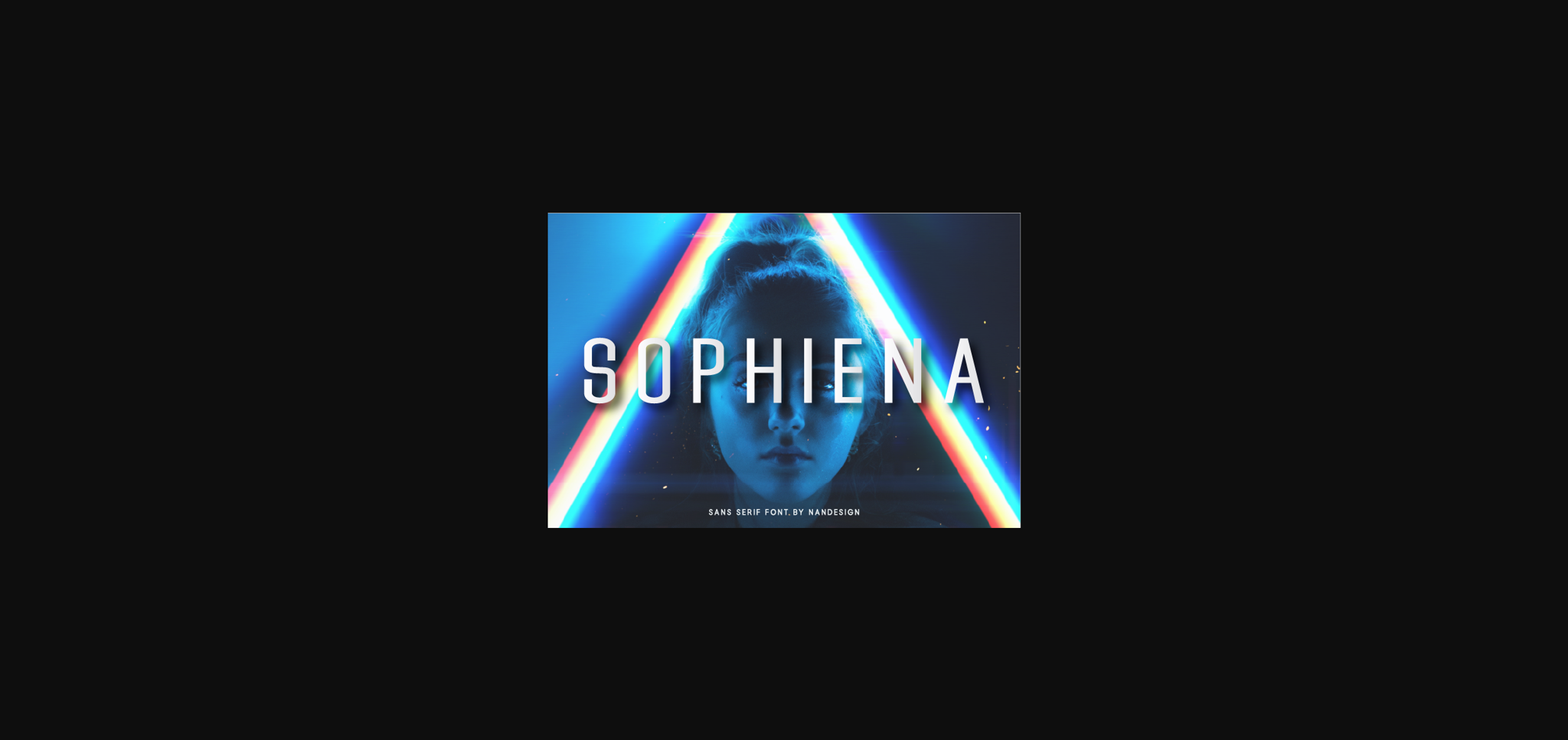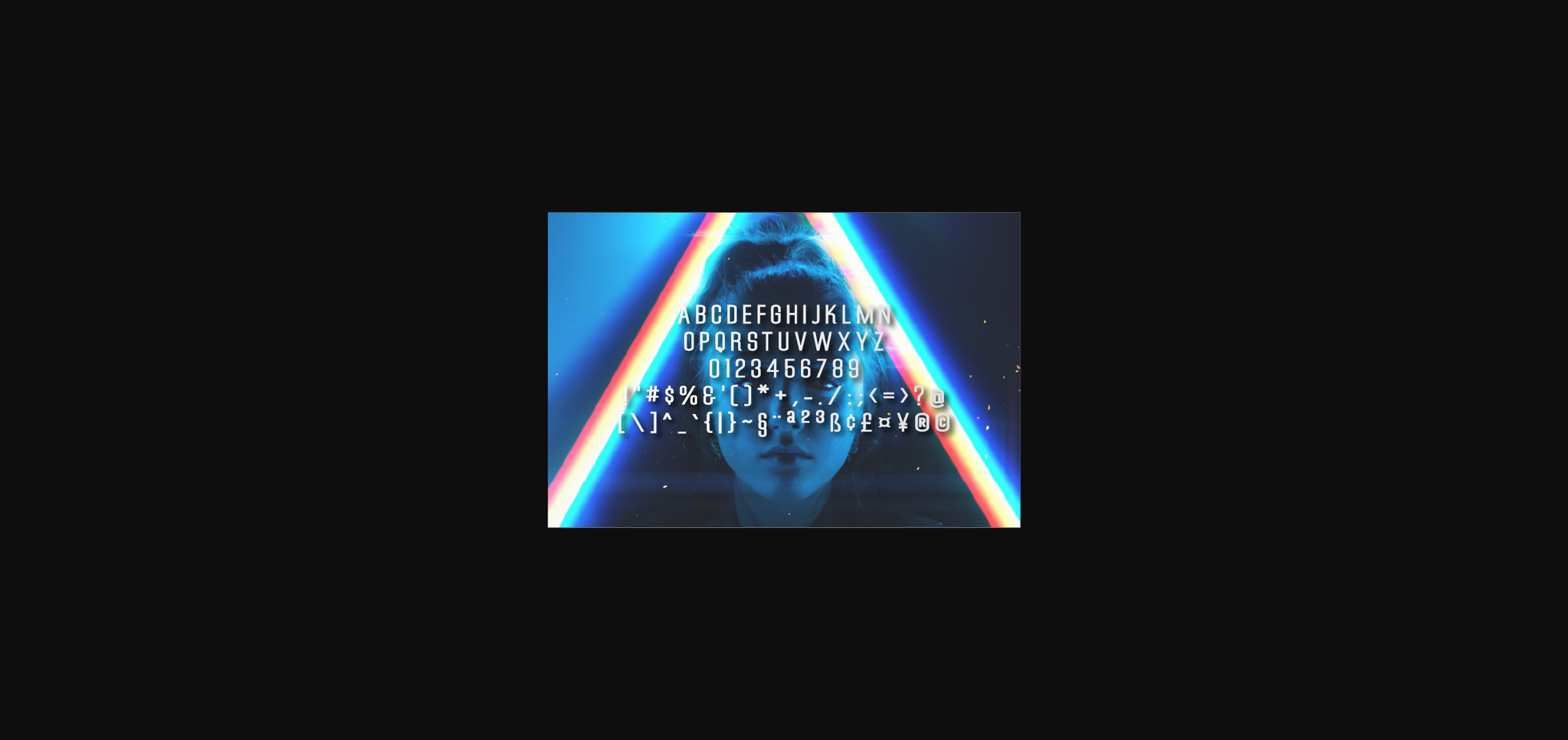
Sophiena Font
About Sophiena Font
Sophiena is a classy sans serif font. Due to its neat style, Sophiena is suitable for a wide spectrum of projects. Fall in love with it and add it to your favorite designs!